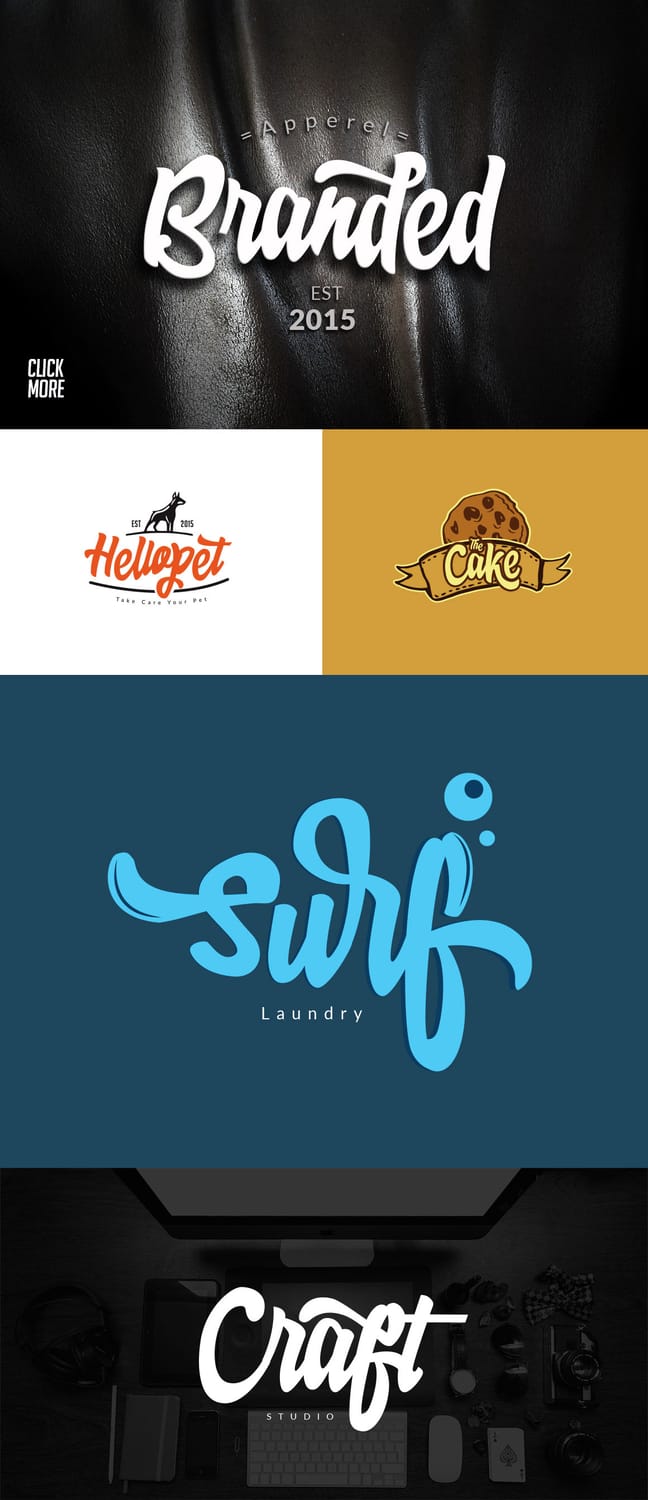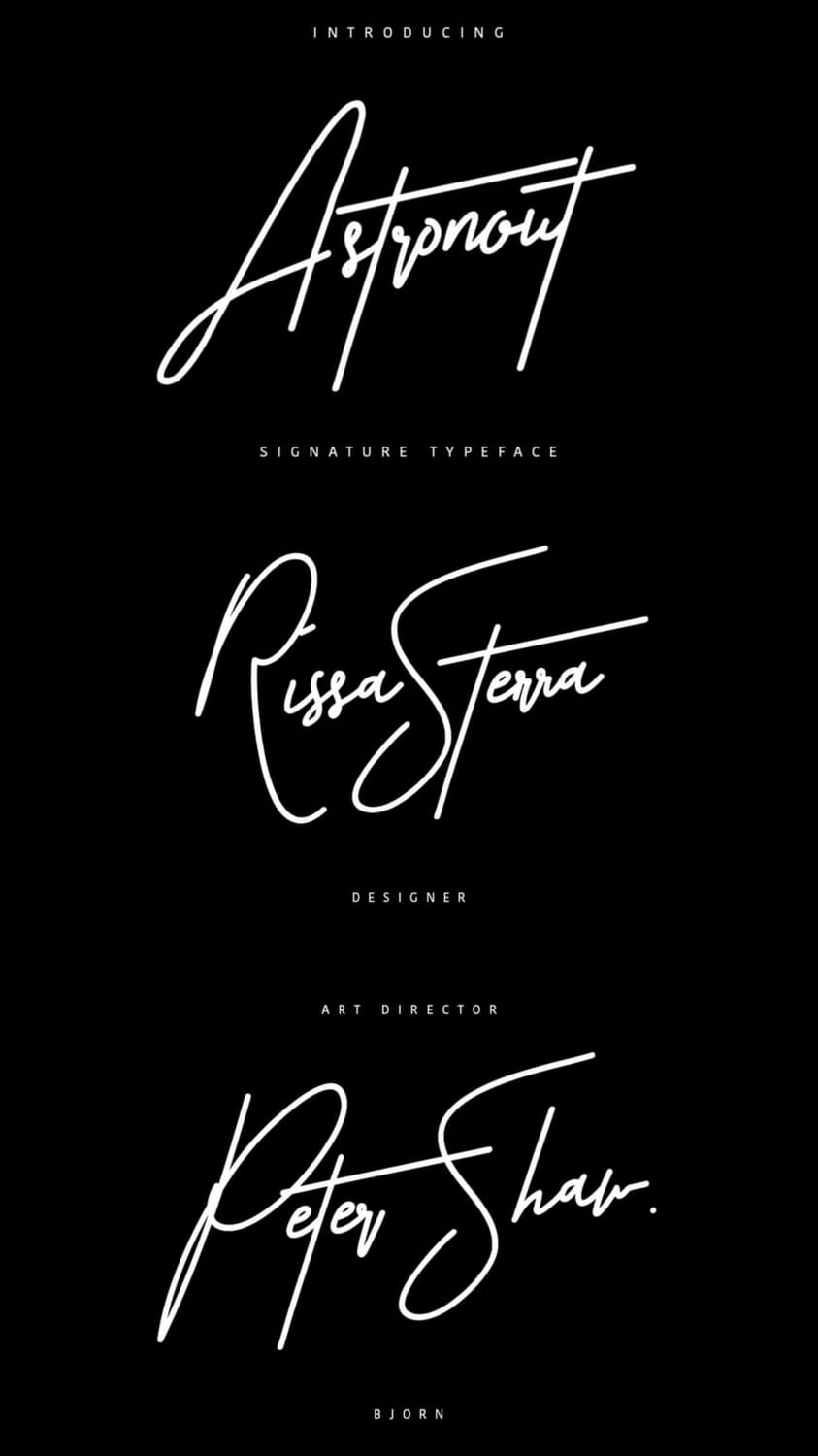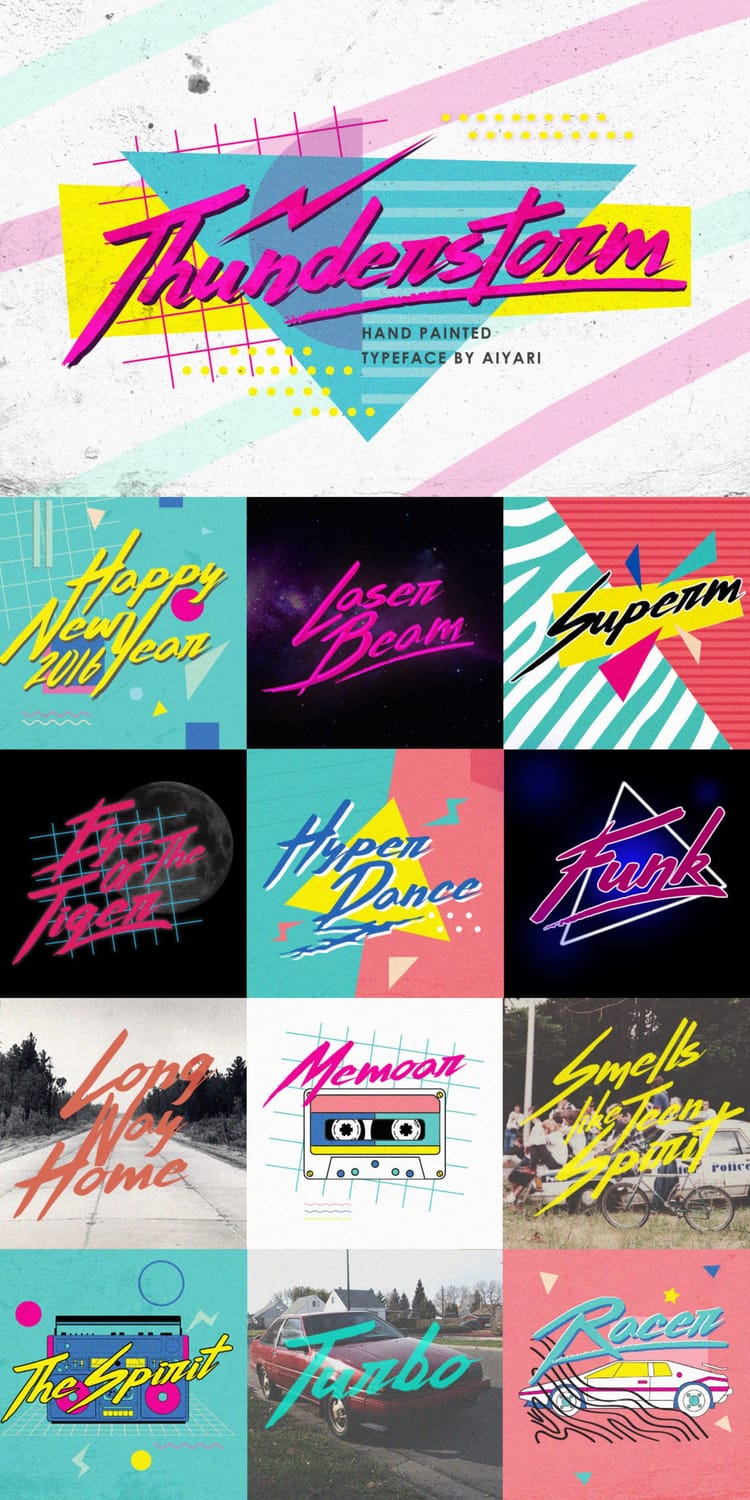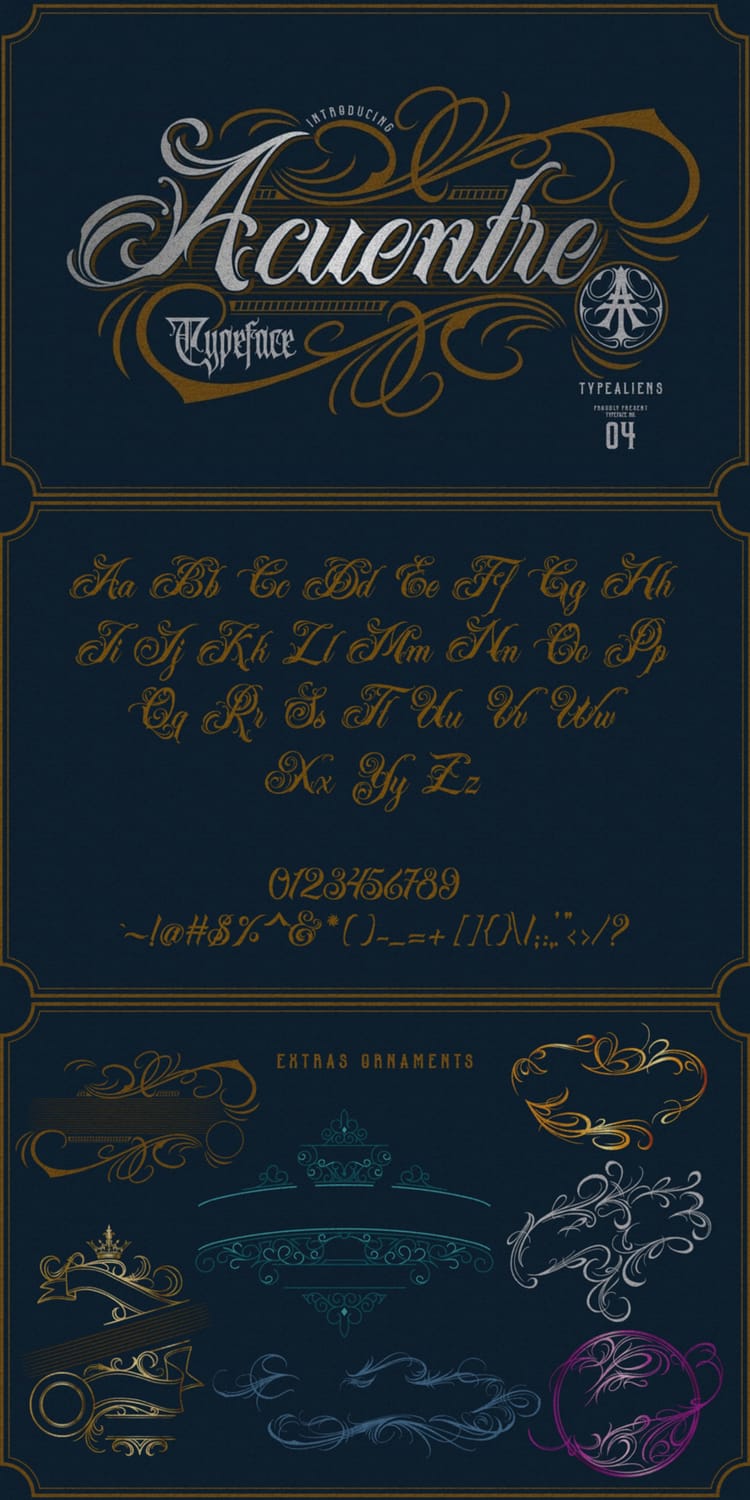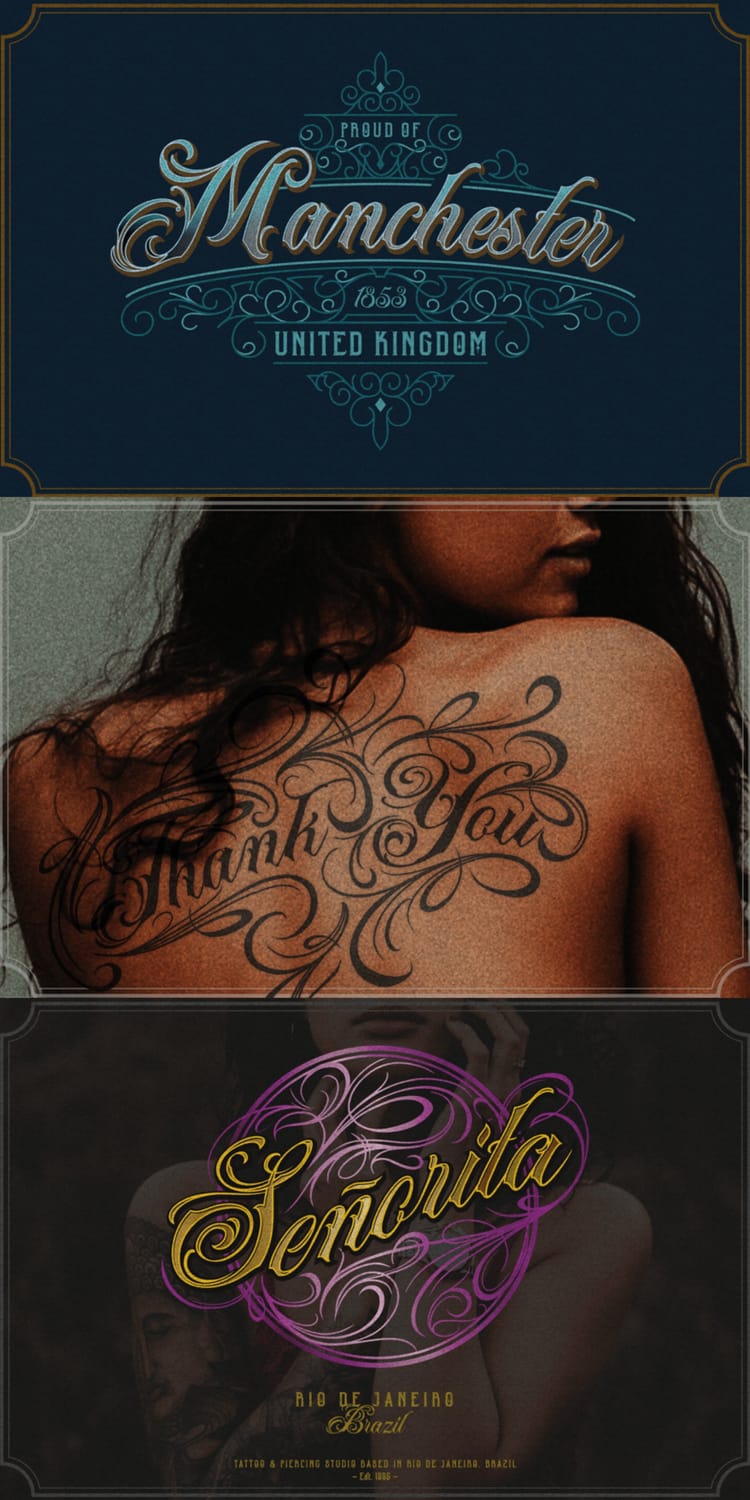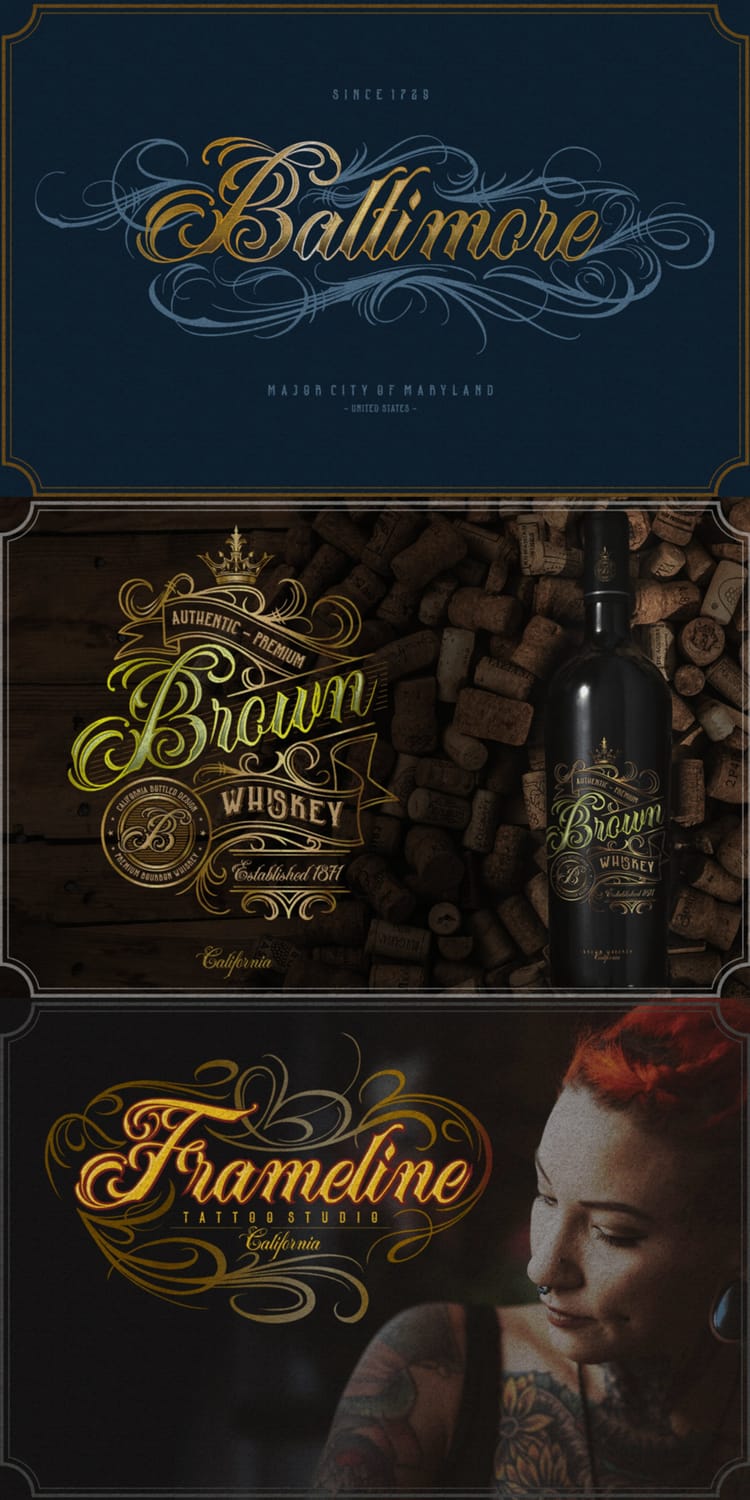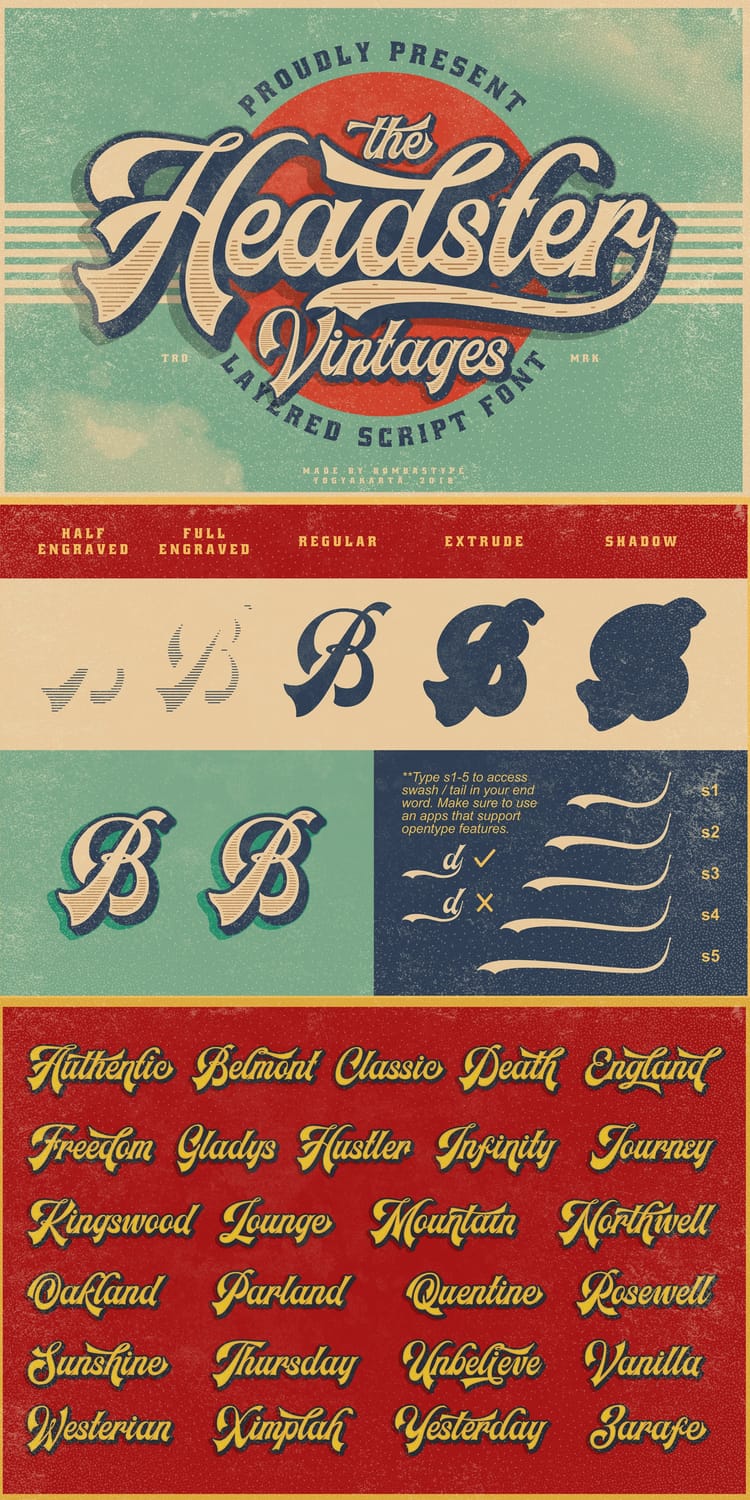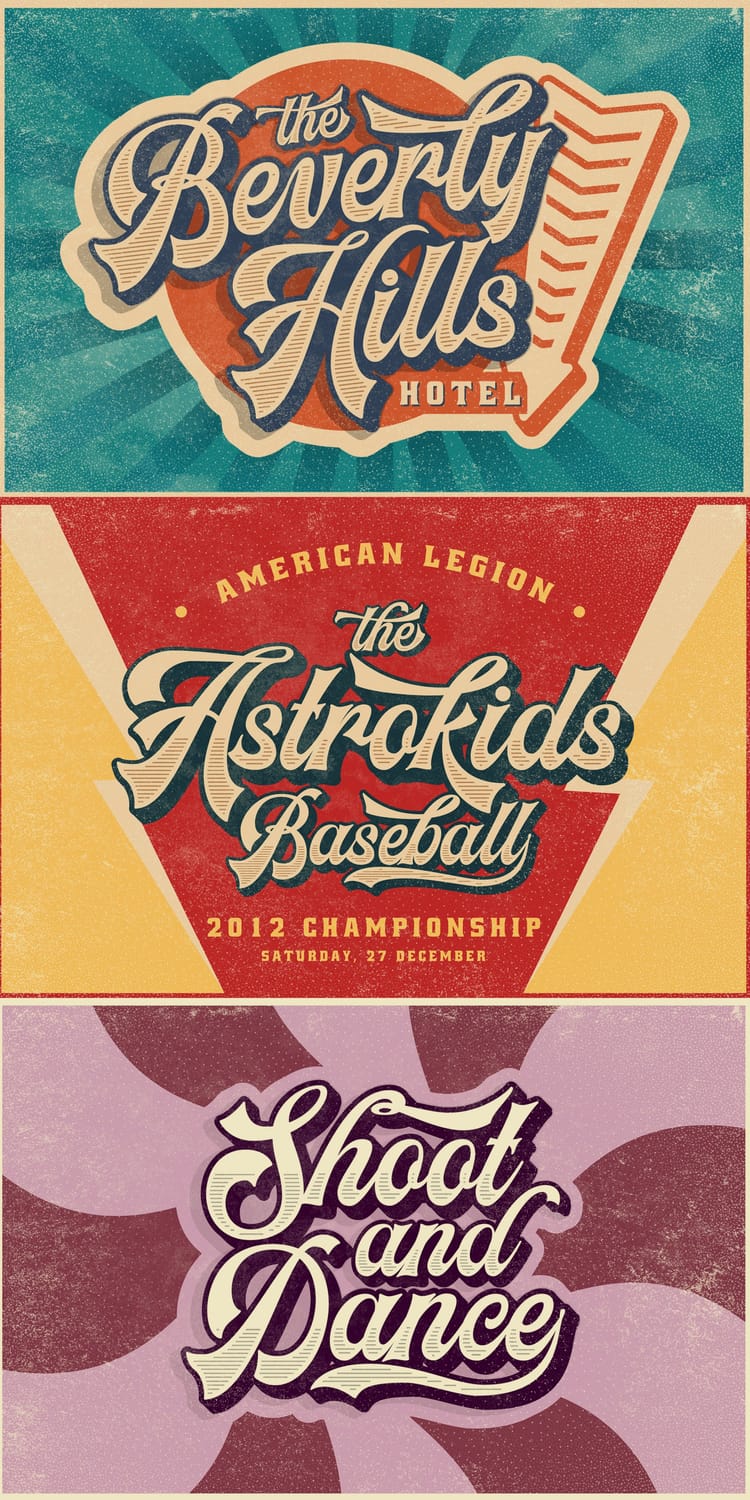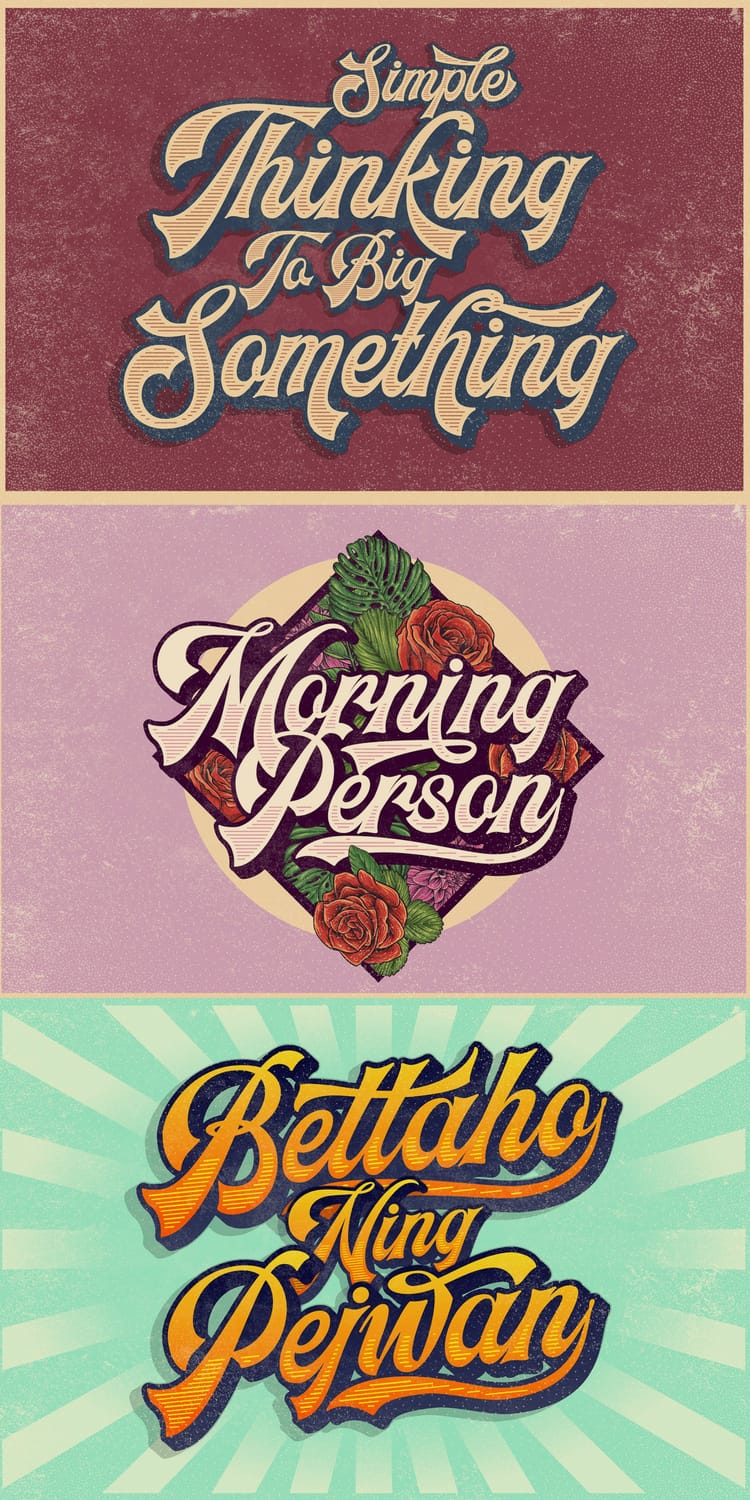
Your logo's font does more than spell out your business name—it sets the tone before a customer reads a single word about what you offer. Script fonts, with their flowing, hand-lettered feel, have become a go-to choice for brands that want to convey elegance, personality, or a personal touch. From high-end boutiques to cozy bakeries, the right script typeface can make a logo feel crafted rather than generic.
But not every script font works for every brand—some are too delicate to read at a glance, while others feel too casual for a polished identity. In this guide, we'll walk through the best script fonts for logo design in 2026, covering free and premium options, how to choose the right style for your industry, and tips for pairing script fonts with other typefaces to build a logo that's both beautiful and functional.
Not every beautiful script font translates well into an effective logo. Before choosing a typeface, it helps to understand the qualities that separate a font that merely looks nice from one that actually works for branding.
A logo needs to hold up everywhere—from a website favicon to a business card to a storefront sign. Ornate scripts with exaggerated flourishes might look stunning at large sizes but can turn into an illegible blur when shrunk down. The best script fonts for logos strike a balance between decorative charm and clarity, so your brand name stays readable no matter where it appears.
Script fonts are designed to mimic natural handwriting, which means letters often connect or overlap by default. This can create spacing issues, especially with certain letter combinations or when the text is stretched or condensed. A good script font either comes with built-in kerning adjustments or gives you enough control to fine-tune spacing yourself, ensuring the logo doesn't look cramped or awkwardly disjointed.
Script fonts aren't one-size-fits-all. Each style carries its own personality, and choosing the right category is the first step toward finding a font that matches your brand's voice.
These fonts feature graceful, flowing letterforms with refined details—think wedding invitations or high-end packaging. Elegant scripts work well for luxury brands, bridal businesses, jewelry lines, and any brand aiming to project sophistication and timelessness.
Designed to look like natural, everyday handwriting, casual scripts feel approachable and personal. They're a strong fit for brands that want to seem friendly, authentic, or artisanal—think coffee shops, lifestyle blogs, or handmade product lines.
Brush scripts mimic the texture of a paintbrush or marker, often with varying stroke widths and a slightly rough, organic edge. This style brings energy and boldness to a logo, making it popular for food and beverage brands, creative agencies, and businesses that want to feel dynamic rather than delicate.
Rooted in traditional pen-and-ink lettering, calligraphy fonts emphasize dramatic thick-and-thin strokes and ornate flourishes. These fonts suit brands that want a classic, artisanal, or old-world feel—think bakeries, wineries, or heritage-focused businesses.
A more contemporary take on script lettering, these fonts simplify traditional flourishes into clean, understated lines. Modern scripts pair well with minimalist branding and appeal to businesses in fashion, beauty, and design that want a script font without feeling overly ornate or old-fashioned.
For brands that want polish, exclusivity, or a font less likely to appear on competitors' logos, premium script fonts are worth the investment. Here are some standout options across different styles.
Style: Brush script / handwriting hybrid
Why it works: Natasya blends brush lettering with natural handwriting for a bold, energetic feel that still reads as personal and human. With 401 glyphs and 191 alternate characters—including ligatures, contextual alternates, stylistic sets, and swashes—it offers serious flexibility for customizing wordmarks without needing a second font. The alternates are also usable in Photoshop, not just OpenType-savvy apps like Illustrator or InDesign, making it accessible across different design workflows.